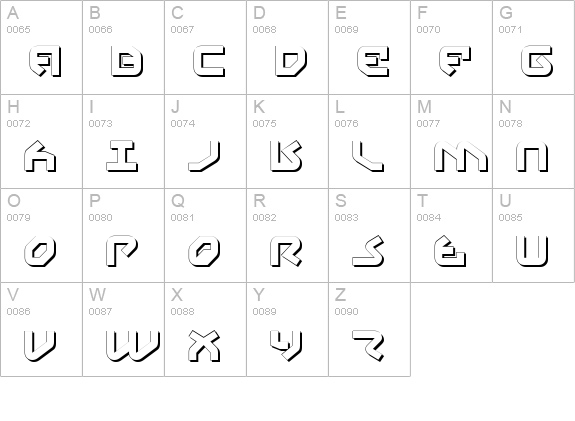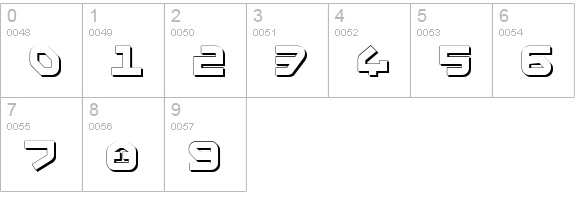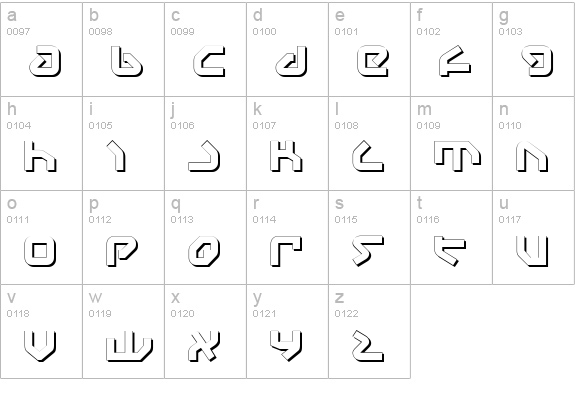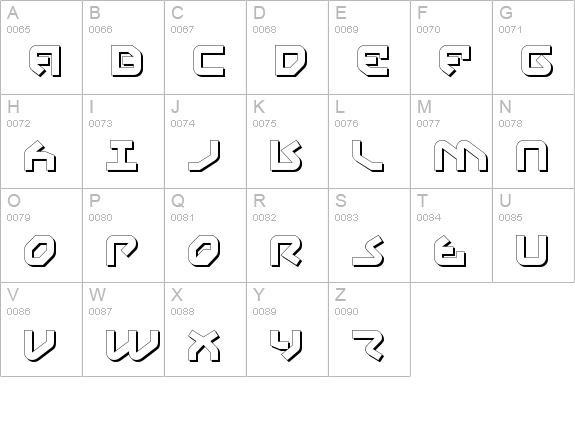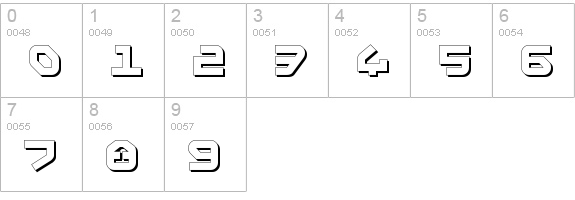
Yahren Shadow Font Details
Yahren Shadow font is a stunning display typeface that exudes a sense of mystery and elegance. With its intricate design and unique shadow effect, this font is perfect for creating eye-catching headlines, logos, and posters. The fluid curves and sharp angles of Yahren Shadow give it a modern yet timeless feel, making it versatile for a wide range of design projects. The best part? Yahren Shadow font is completely free to download at FontsMarket.com. This means you can add this striking typeface to your collection without any cost, allowing you to unleash your creativity without limitations. Whether you're a graphic designer, artist, or hobbyist, Yahren Shadow font is a valuable addition to your toolbox, offering endless possibilities for your design projects. Download it today and elevate your designs with this exquisite and captivating font.